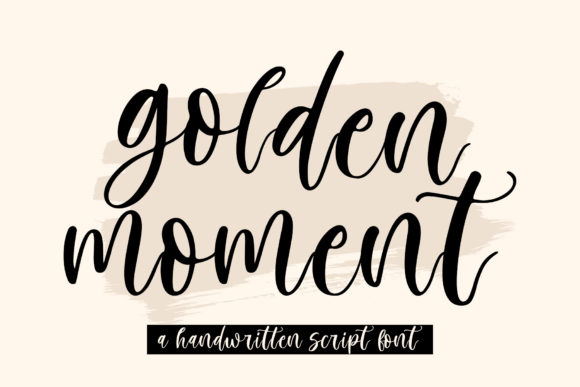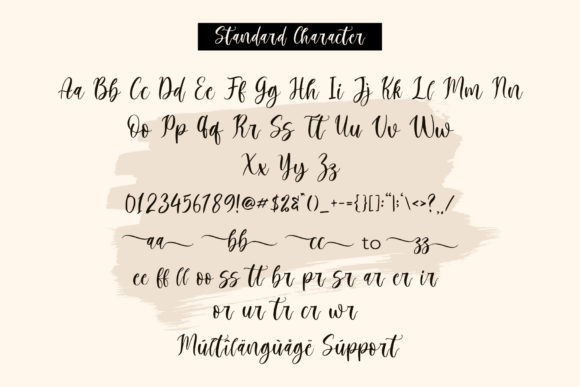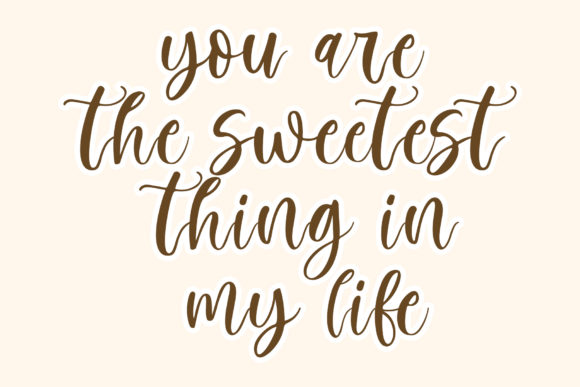
About Golden Moment Font
Golden Moment is a unique and interesting handwritten font. Incredibly versatile, this font will fit a wide pool of designs.
Fall in love with its incredibly stylish look and use it to create spectacular designs!